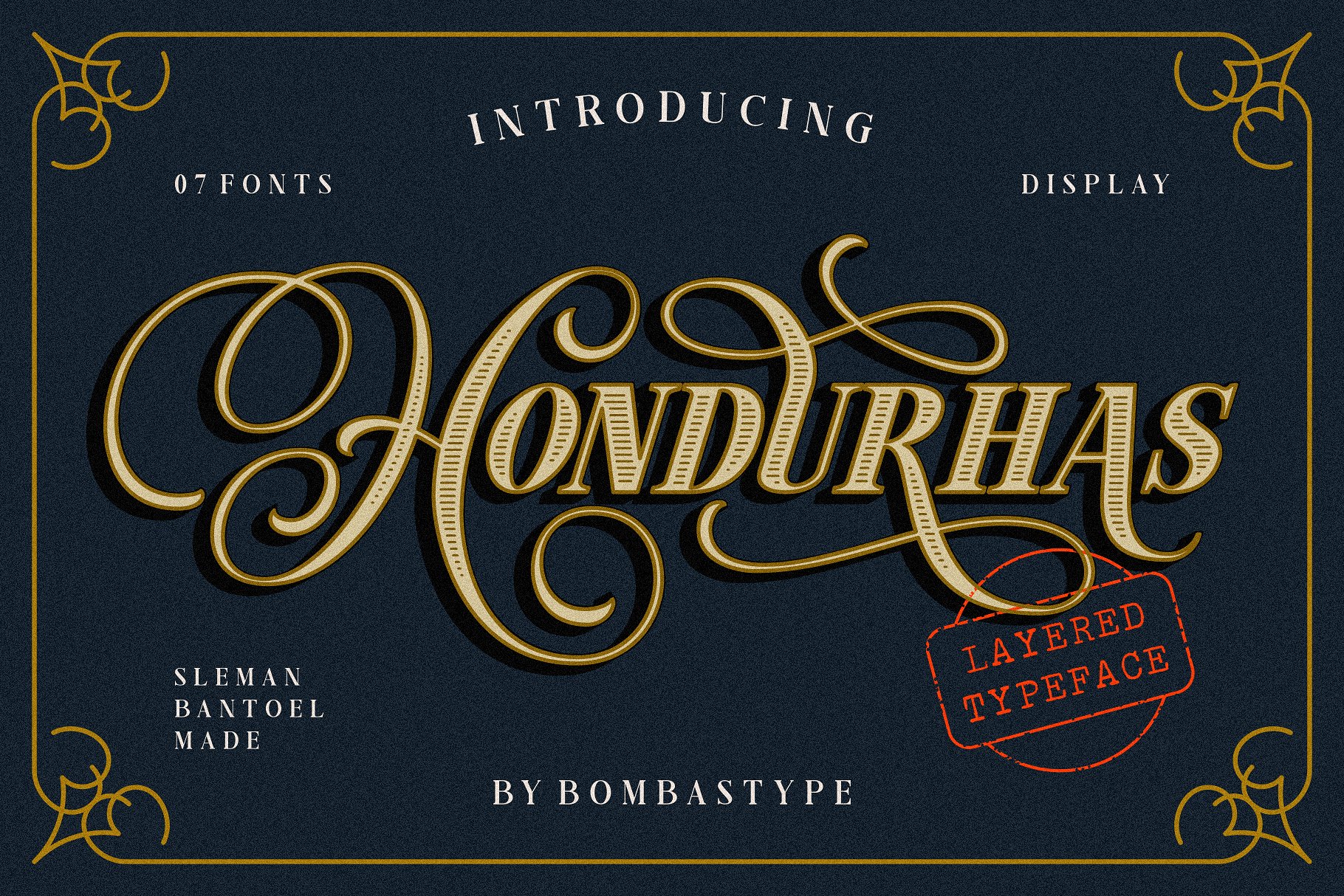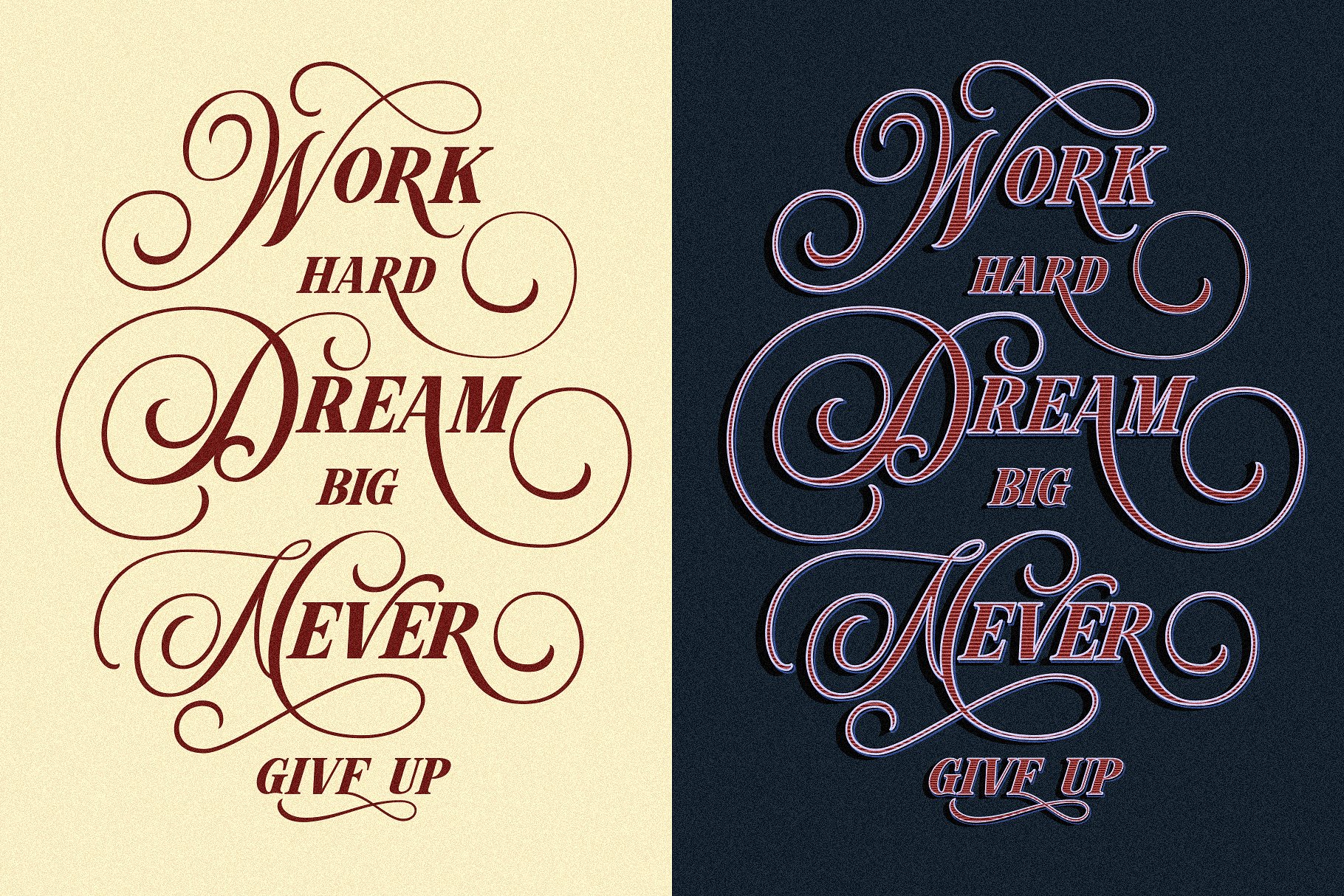
Hondurhas Layered
Hondurhas Layered Font
Introducing HONDURHAS , a new concept that combined script uppercase with serif lowercase for display purposes. Come up with many playful alternates, so you could mix n match for your needs. Still not good enough? Hondurhas also came up with layered system. 07 FONTS TOTAL !. Because we believe, more layer is more fun. With all those fact, this font is perfect for your many design projects, such as Flyer, Logo Design, Badge, Packaging, Invitation and more.